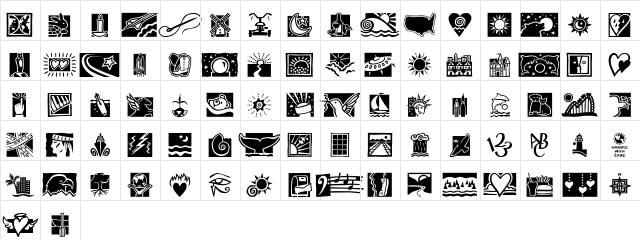
DF Connectivities ITC Regular
| Foundry | International Typeface Corporation |
| Designer | Teri Kahan |
Design Context for DF Connectivities ITC Typeface
DF Connectivities ITC is a composed and adaptable typeface that performs quietly and consistently across a wide range of design contexts.